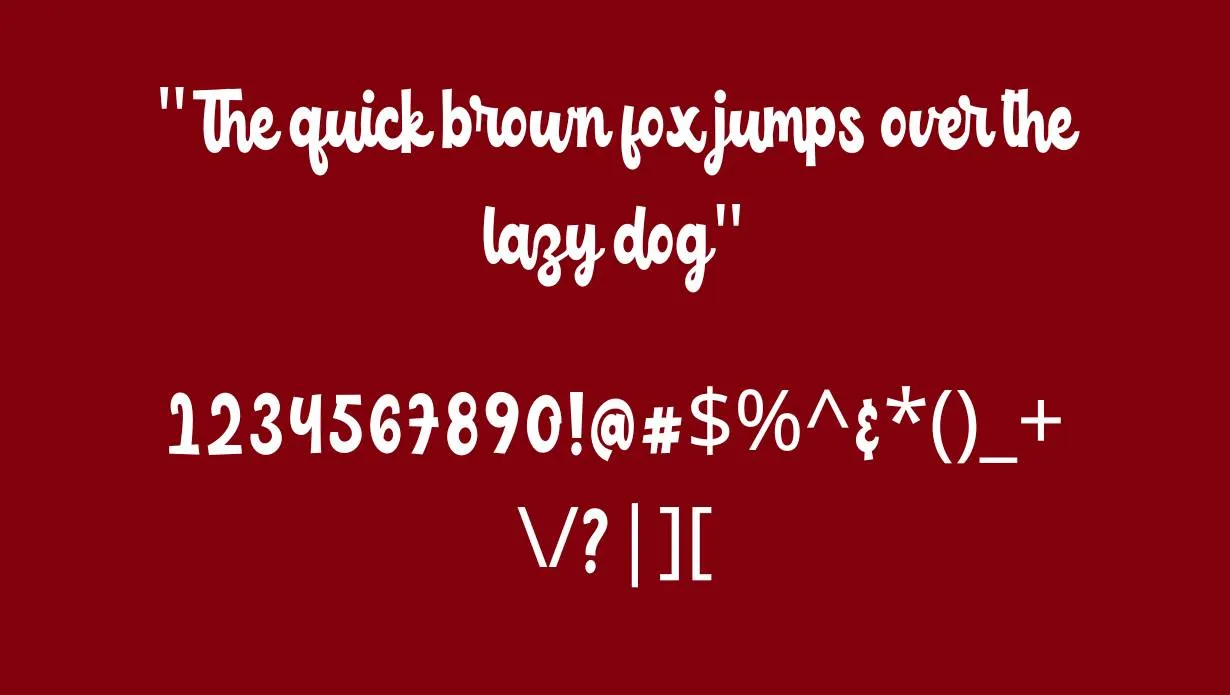
Childish Font is like a playful friend for your words. Each letter has a carefree and fun spirit, part of a delightful game. When you use Childish Font, it’s like a joyful playdate, echoing the laughter of children in a sunny park.
Imagine the delightful charm of carefree playfulness, making your writing feel light and whimsical. Pick Childish Font when you want your words to have the joyful energy of carefree playfulness, adding a touch of delight to every letter.